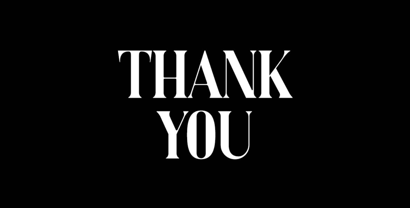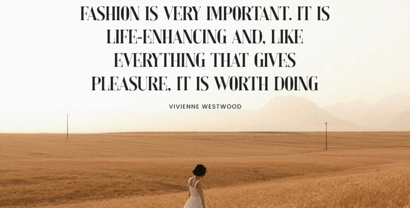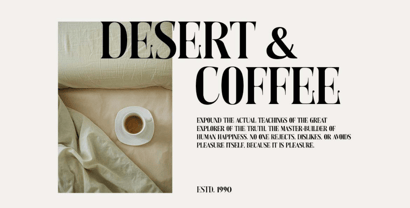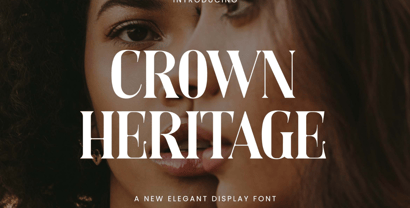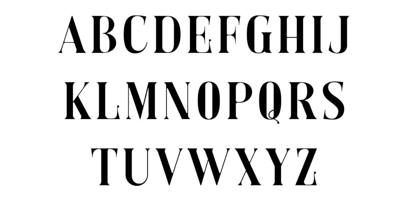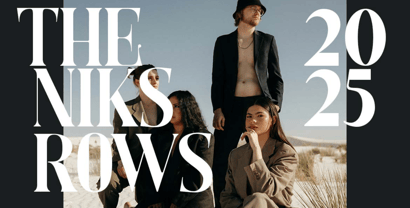
Crown Heritage
by UICreative
The Crown Heritage Font Family was designed by Hero and published by UICreative. Crown Heritage contains 1 styles.
Crown Heritage Elegant Display Font. The modern display font feels beautiful classy, elegant, and stylish. This font is ideally suited for a wide variety of projects, such as signature, stationery, logo, wedding, typography quotes, magazine or book covers, website headers, branding, and more. Also, fashion-related branding or editorial design displays both masculine and feminine qualities.
Designers: Hero
Publisher: UICreative
Foundry: UICreative
Design Owner: UICreative